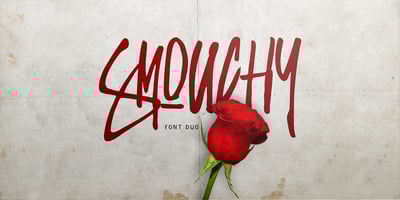
Smouchy Font Duo
Smouchy Font Duo Font Family was designed by Rendy Yanwar and published by me55enjah. Smouchy Font Duo contains 3 styles and family package options. SMOUCHY FONT DUO Smouchy in two different style, hand letter sans and hand brush with rugged stroke bring more expressive look. Combine this two typeface make it more fun to use. Features: Smouchy: All Caps, numeral, punctuation & ligatures Smouchy Book: Uppercase, lowercase, punctuation, multi languages Add some extras to make your design more smouchy 🙂 Thank you for your visit. Hope you enjoy 🙂